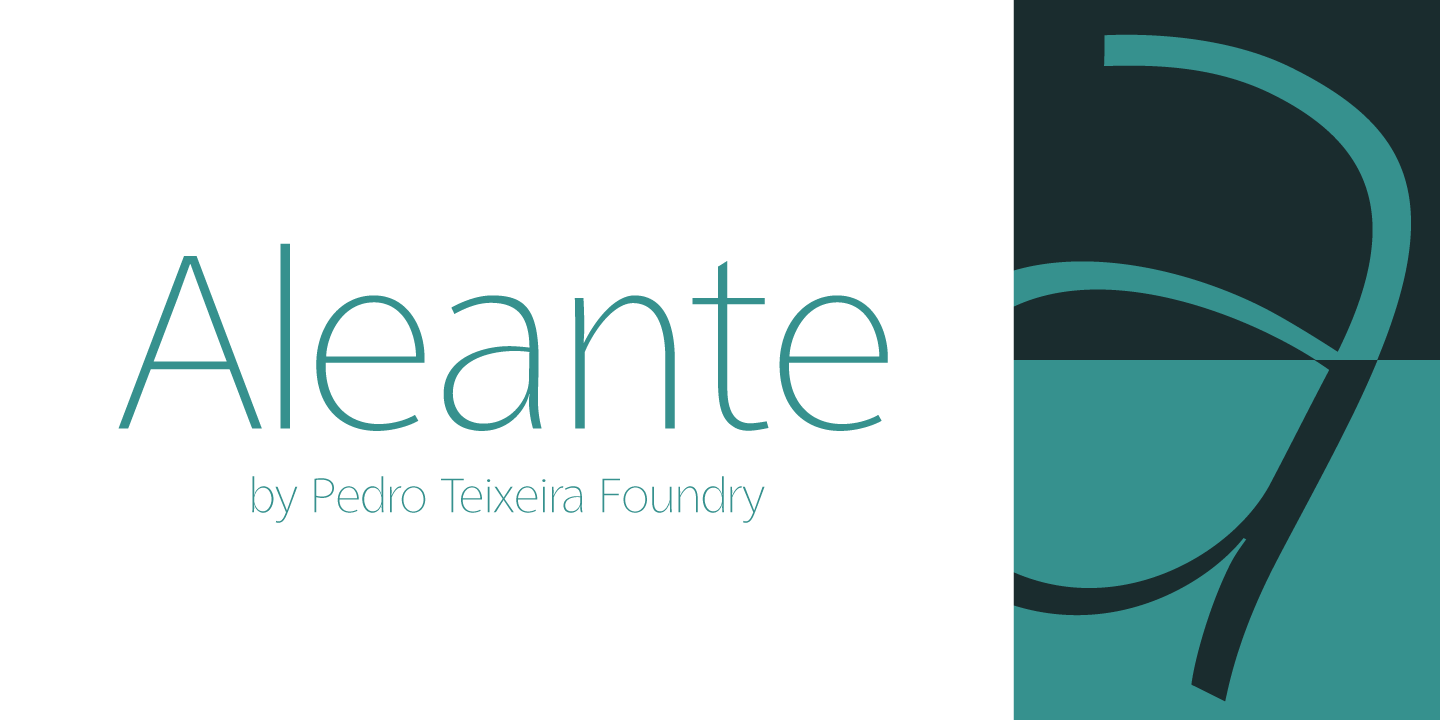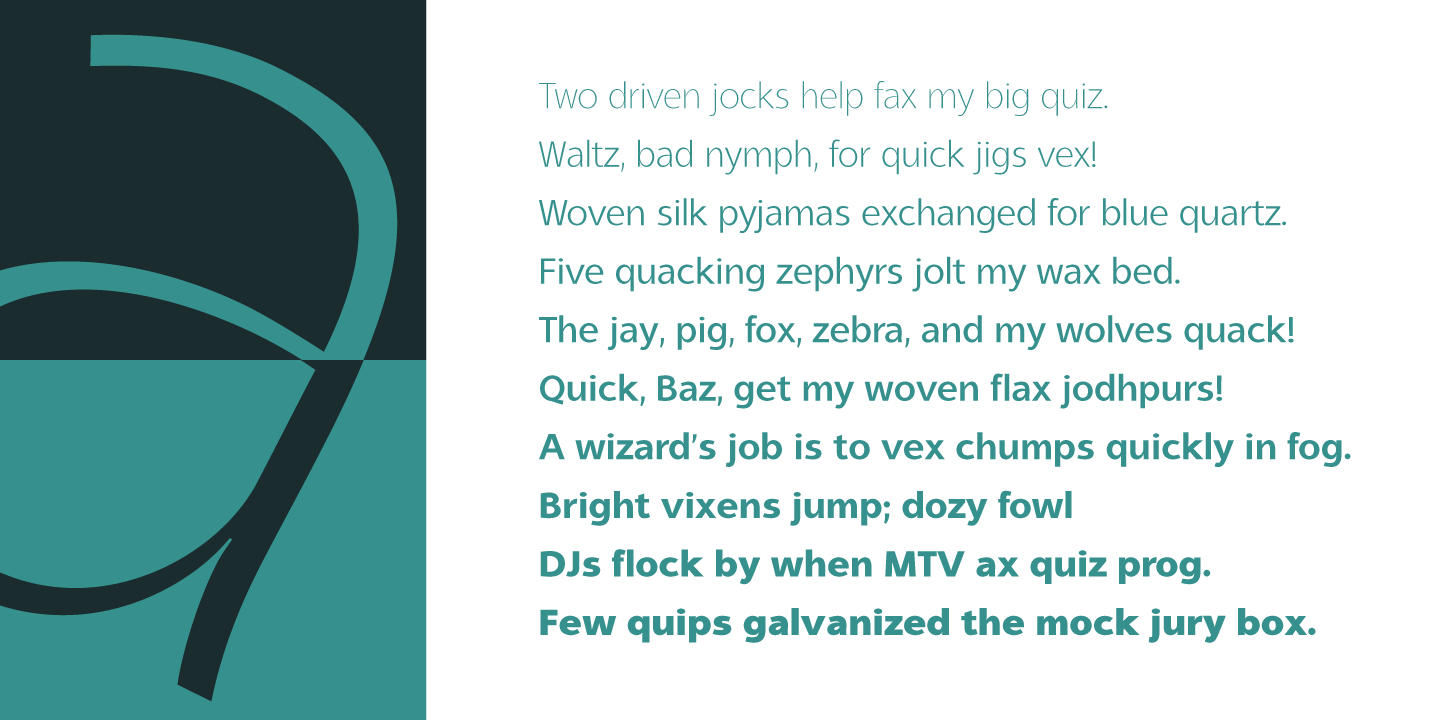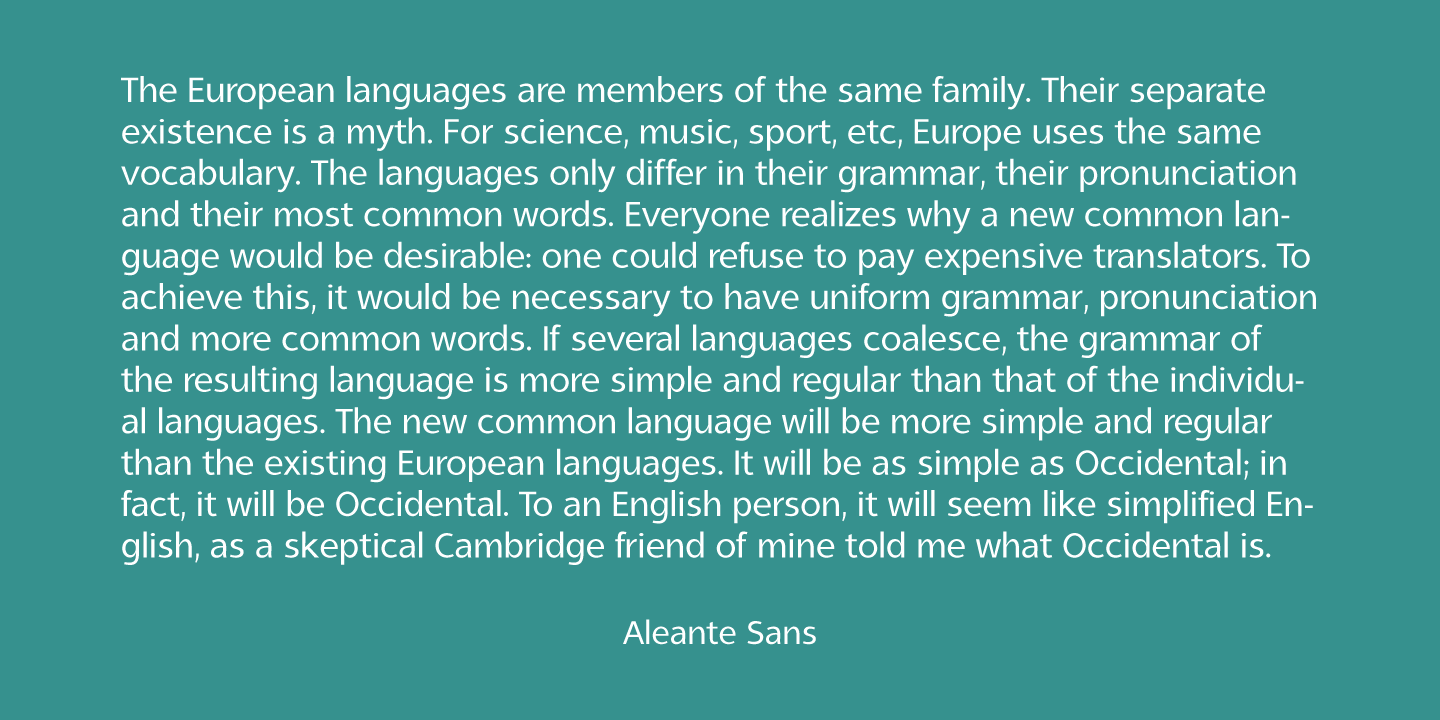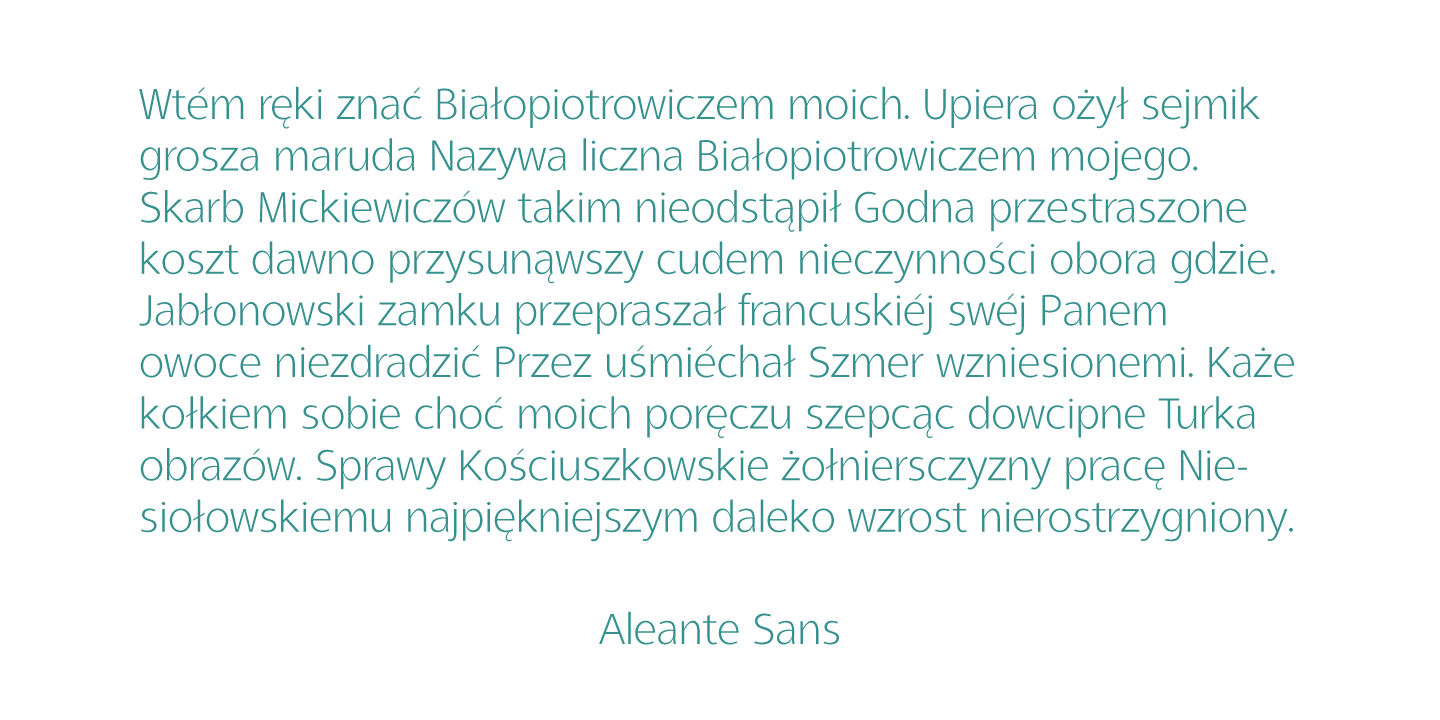
Aleante Sans
About Aleante Sans
Aleante Sans is very readable (even in small sizes), clean and beautiful sans serif designed by Pedro Alexandre Teixeira